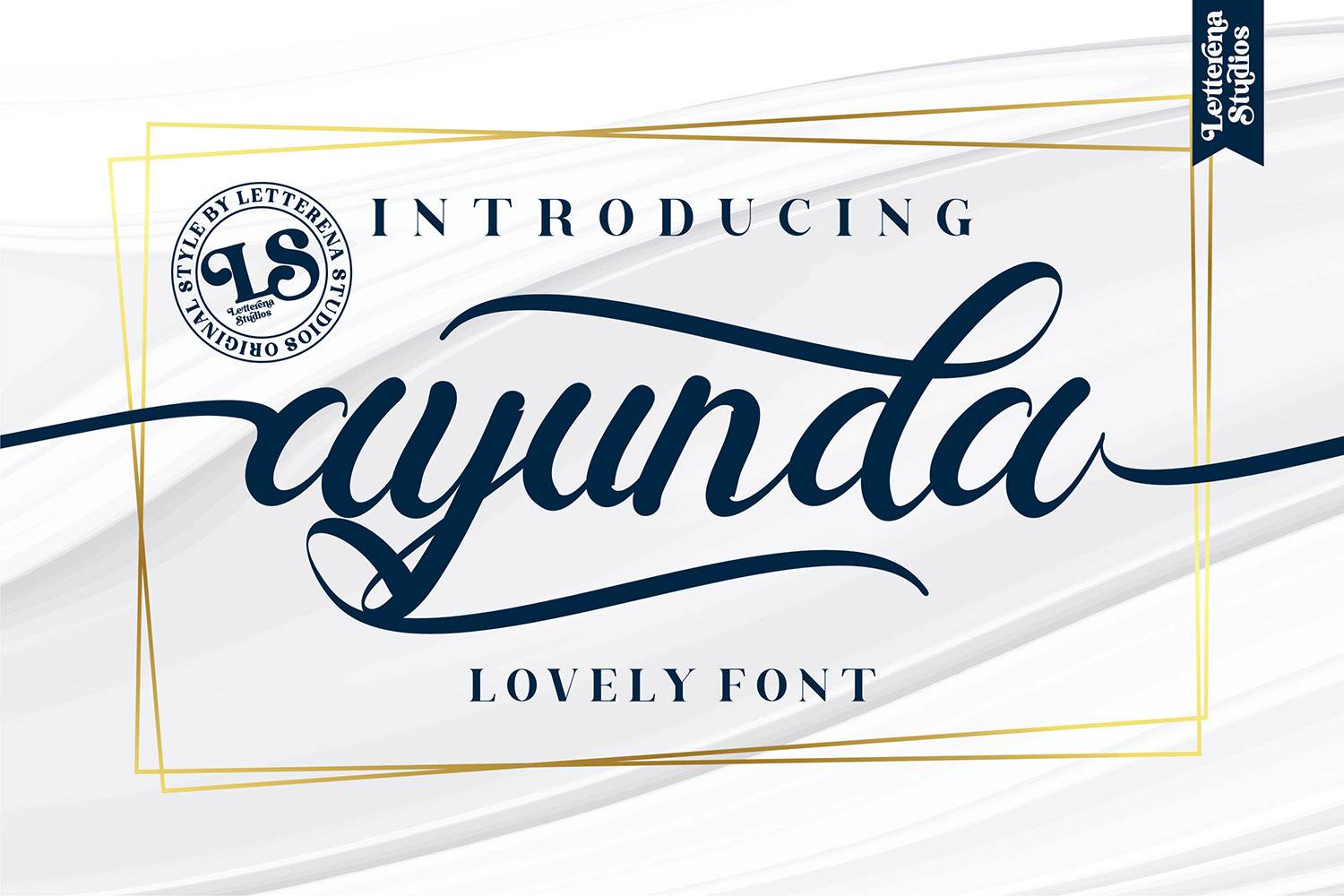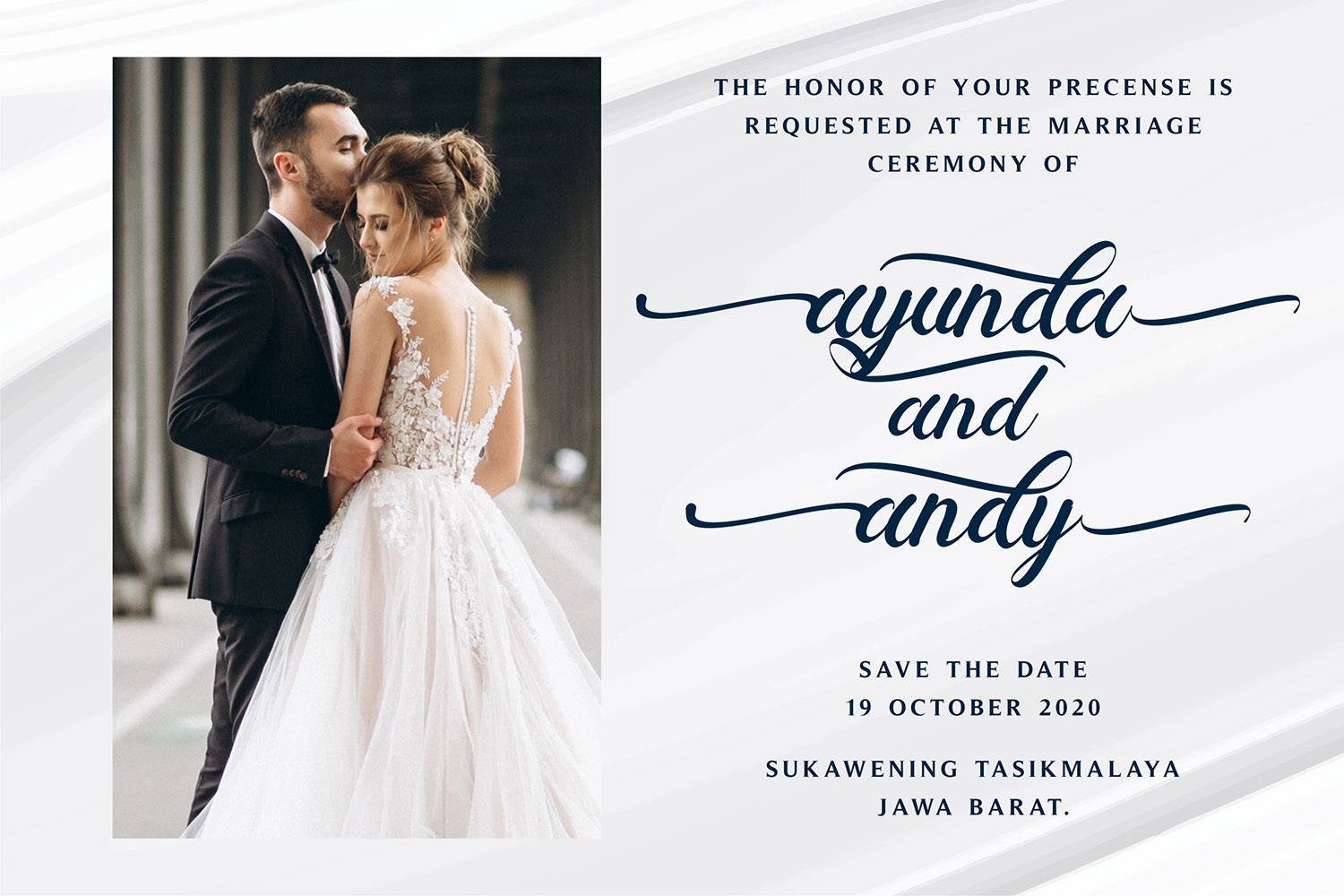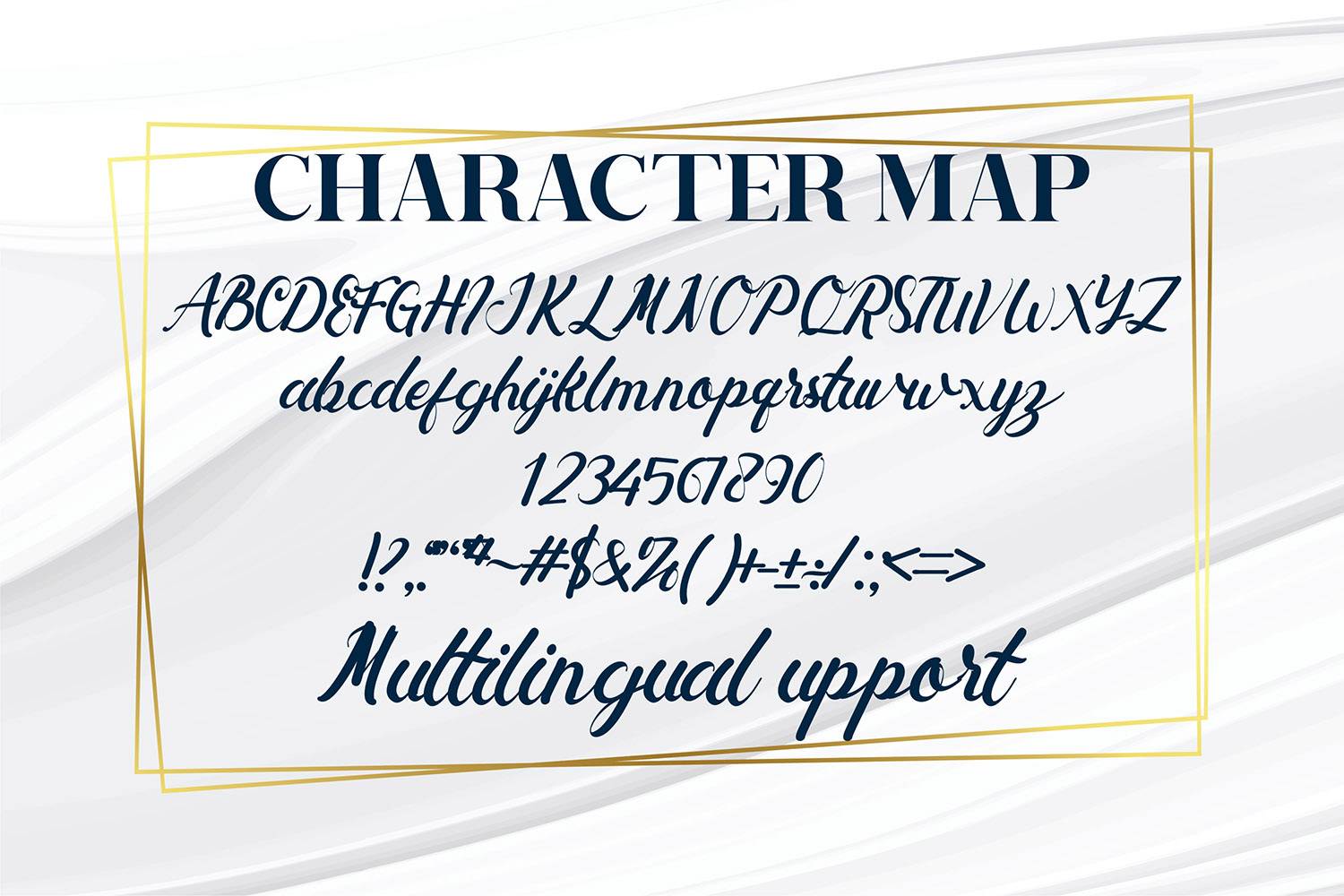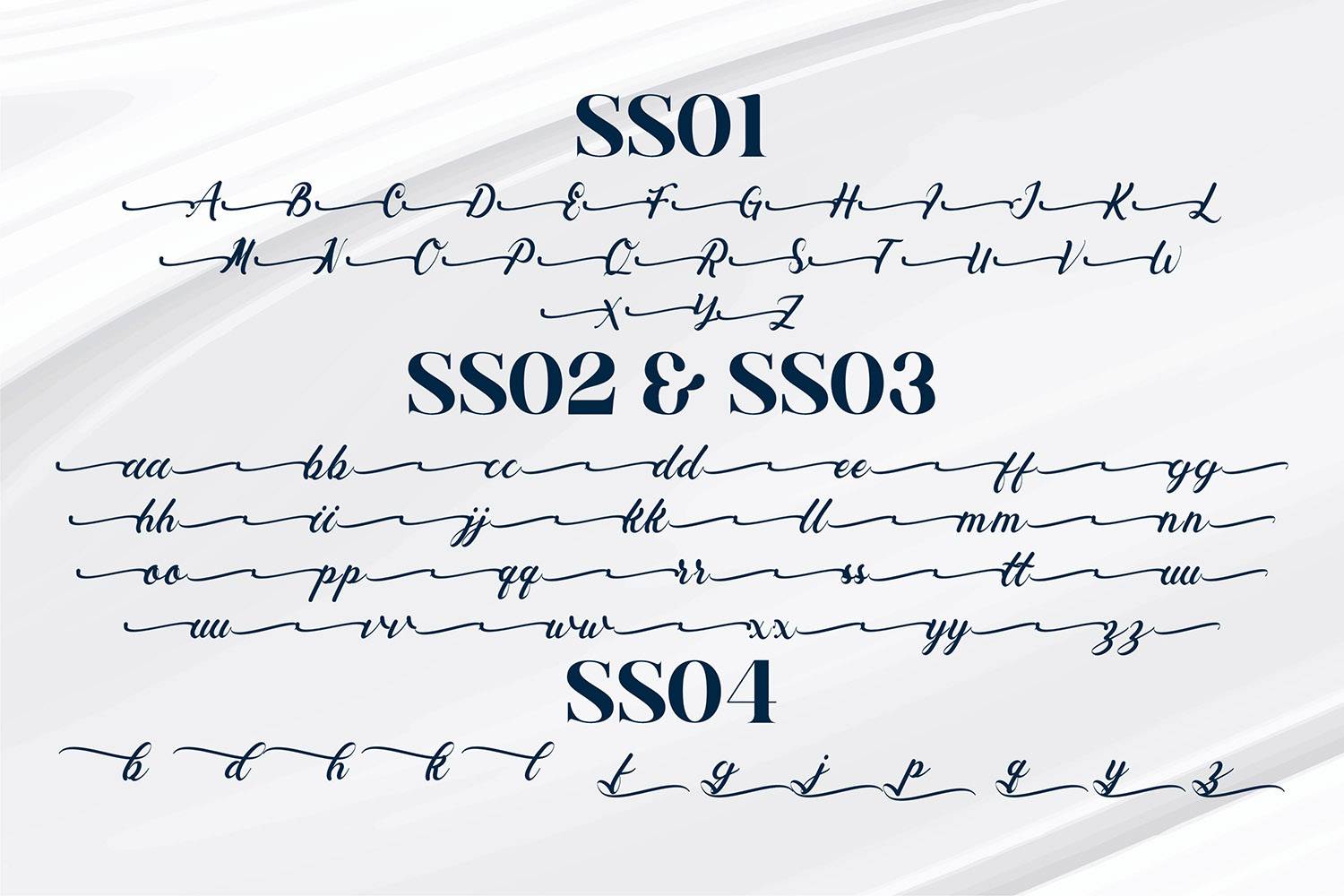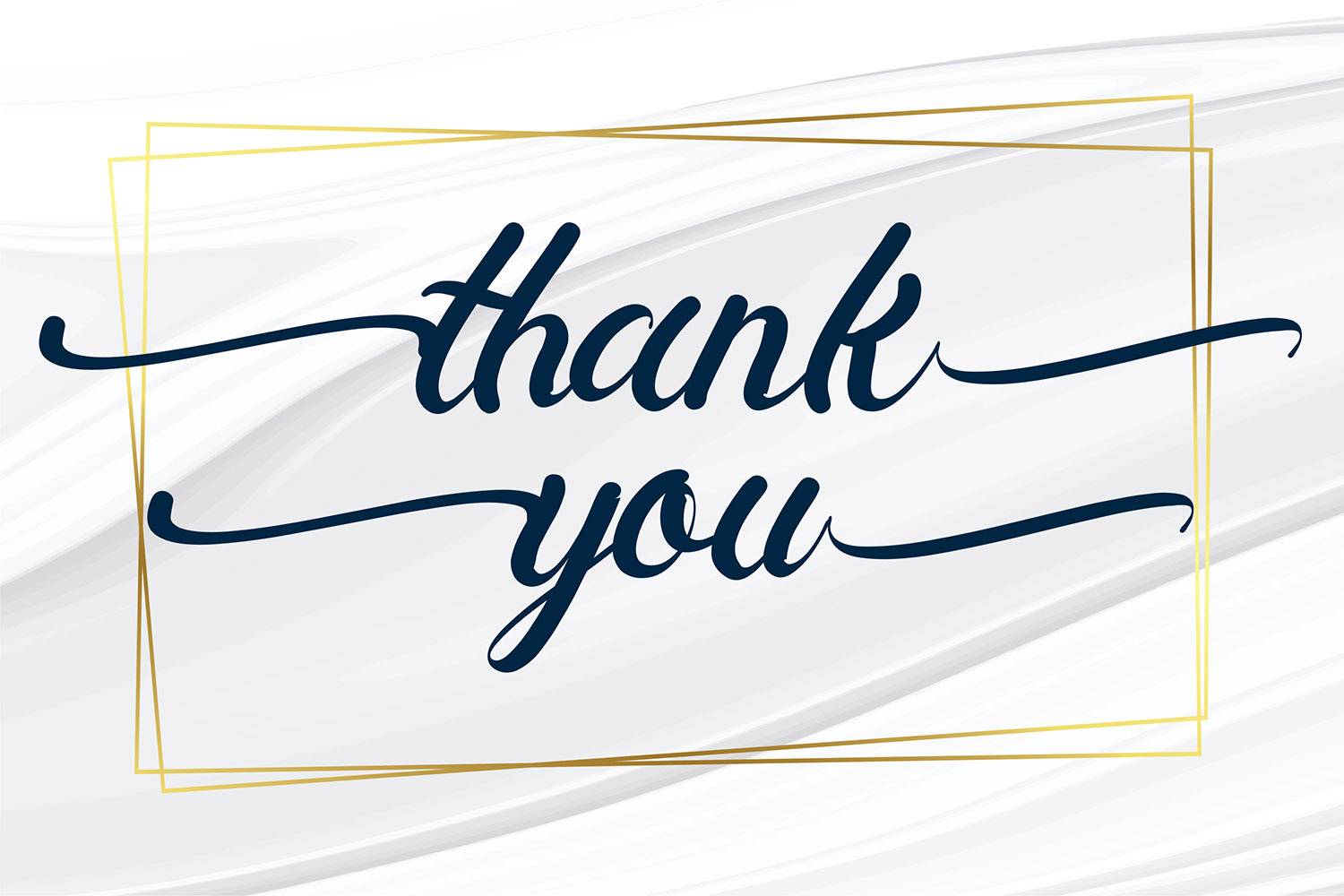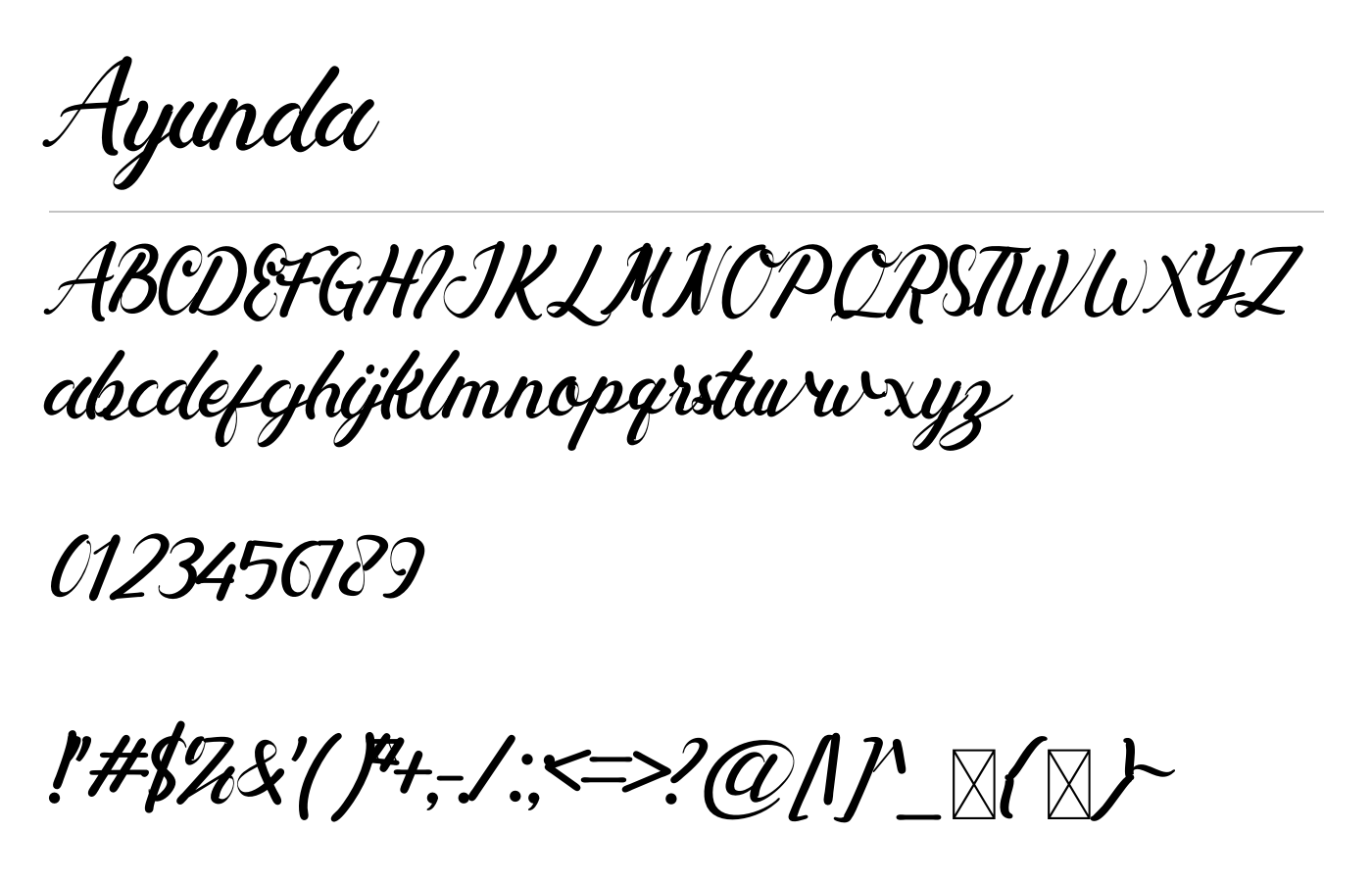
Ayunda is an elegant script font with a flowing, handwritten style that combines smooth curves and moderate contrast in stroke weight. It features a lively and slightly casual personality, making it perfect for creative and stylish branding, invitations, and feminine design projects where a personal and graceful touch is desired. Its clear letterforms and balanced spacing also make it suitable for headlines and decorative text that needs to stand out with a refined, approachable charm.
Ayunda Font
About Ayunda Font
| Font family | Ayunda Font |